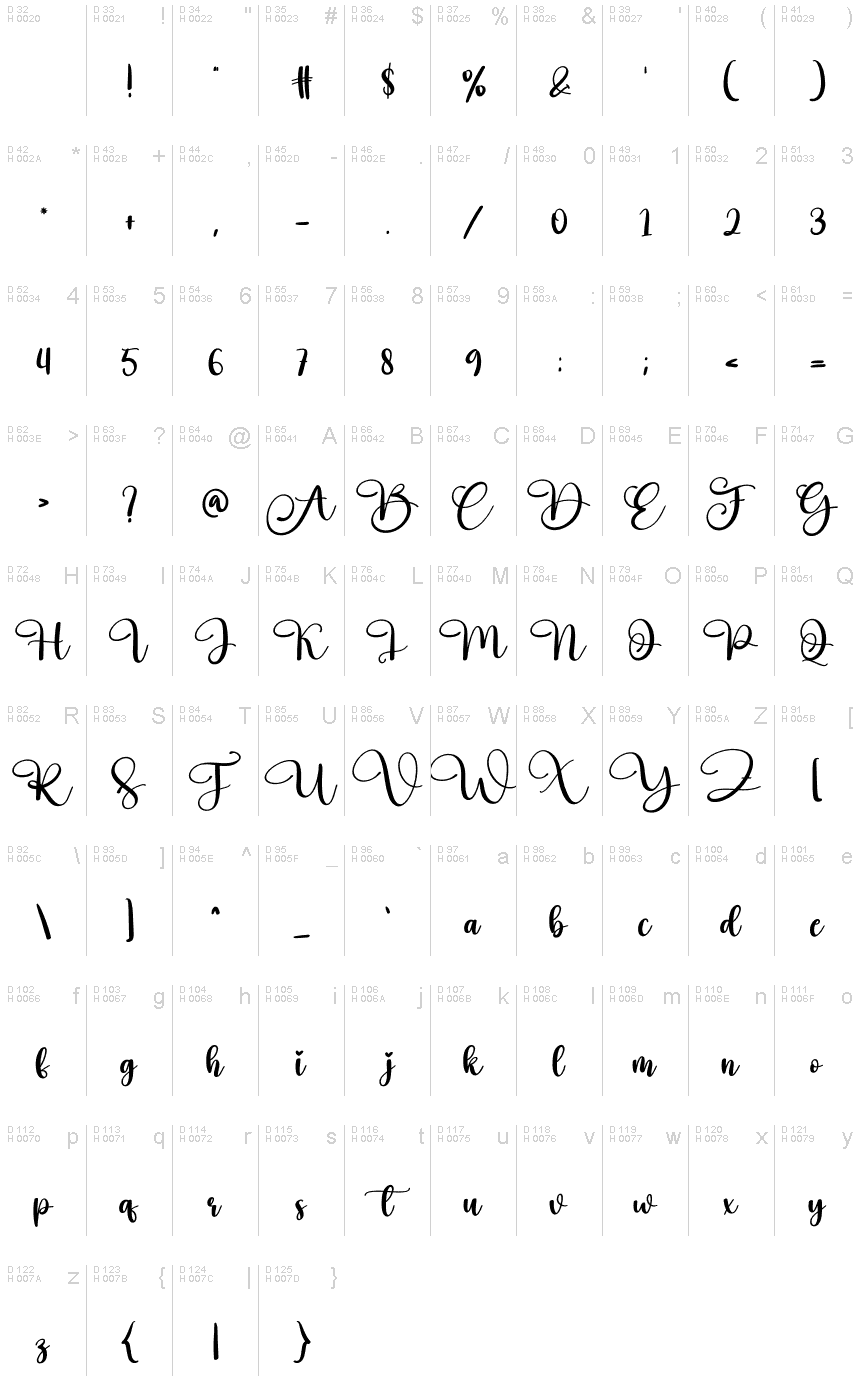
The Bakery font, designed by Scratchones, is a stunning example of amazing calligraphy.
Its semi-light weight adds an elegant touch to any project. With its intricate and flowing strokes, The Bakery font is perfect for wedding invitations, greeting cards, and stylish branding materials. Its versatility allows it to be used in various projects such as luxurious fashion magazines, high-end restaurant menus, and romantic poetry books.
Embrace the artistic beauty of The Bakery font and elevate your designs with its graceful charm and sophistication.